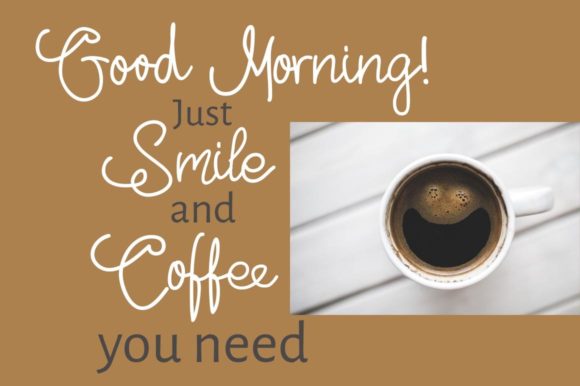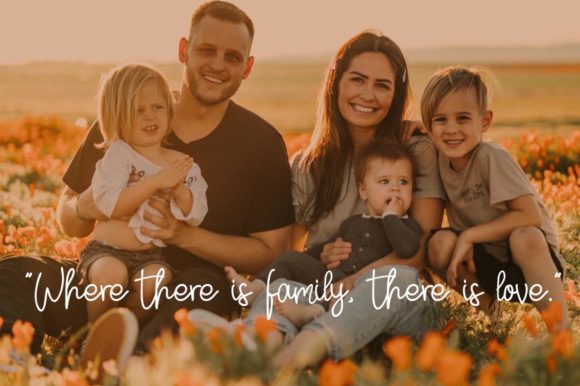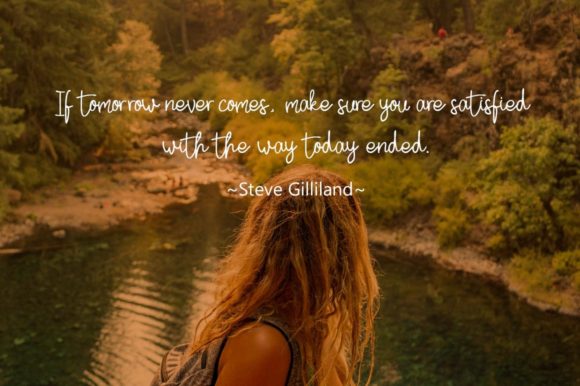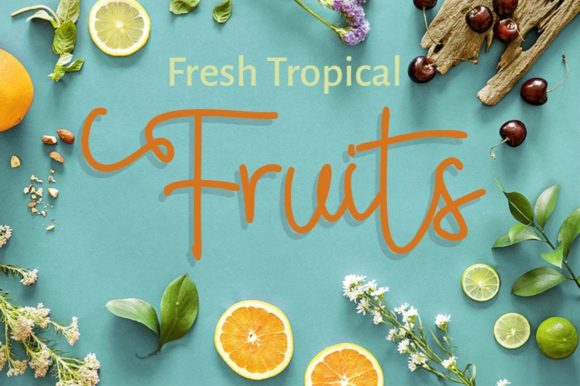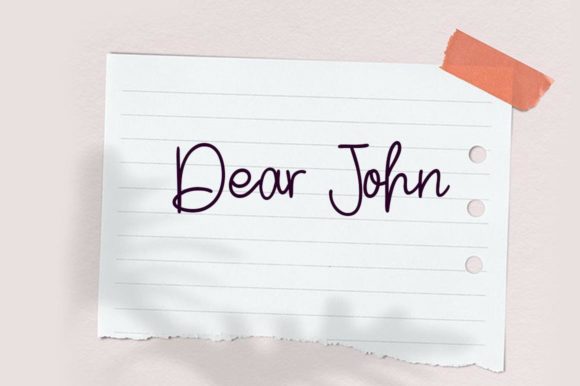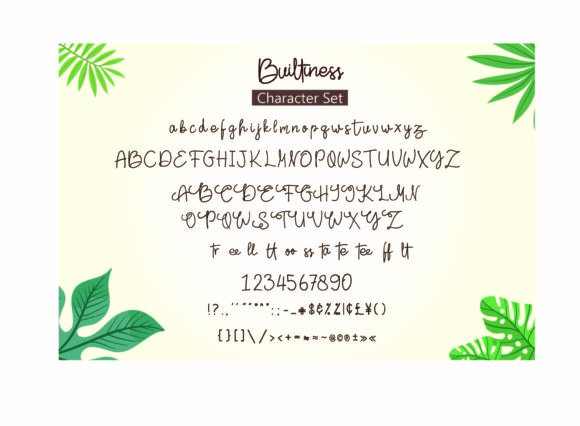
Introducing Builtiness Font: Elevate Your Creative Projects with Elegance
Are you a designer, crafter, or DIY enthusiast looking for a font that can add a touch of charm and sophistication to your projects? Look no further than Builtiness Font, a beautiful and chic handwritten font that’s perfect for a wide range of creative endeavors. In this article, we’ll explore the features and benefits of Builtiness Font, and show you how it can help you turn your ideas into stunning works of art.
What is Builtiness Font?
Builtiness Font is a carefully crafted handwritten font that’s designed to bring a touch of elegance and whimsy to your projects. With its flowing lines and delicate curves, this font is perfect for creating beautiful calligraphy scripts, social media graphics, and DIY projects that require a personal touch.
Key Features of Builtiness Font
- Charming and Beautiful: Builtiness Font is a visually stunning font that’s sure to capture attention. Its unique and elegant design makes it perfect for a wide range of creative projects.
- Handwritten with Love: This font is carefully crafted to mimic the look and feel of handwritten script, giving it a personal and authentic touch.
- Versatile: Builtiness Font is perfect for a wide range of projects, from Instagram graphics and social media posts to DIY crafts and calligraphy art.
Uses for Builtiness Font
Builtiness Font is a versatile font that can be used for a wide range of creative projects, including:
- Instagram Graphics: Add a touch of elegance to your Instagram posts and stories with Builtiness Font.
- Calligraphy Art: Create beautiful calligraphy art with Builtiness Font, perfect for framing or gifting.
- DIY Projects: Use Builtiness Font to add a personal touch to your DIY projects, such as handmade cards, gift tags, and more.
- Branding and Marketing: Use Builtiness Font to create unique and eye-catching branding and marketing materials, such as logos, brochures, and business cards.
Why Choose Builtiness Font?
With so many fonts to choose from, why should you choose Builtiness Font? Here are just a few reasons:
- Unique Design: Builtiness Font has a unique and elegant design that’s sure to stand out from the crowd.
- High-Quality: This font is carefully crafted to ensure high-quality and consistency, making it perfect for professional designers and crafters.